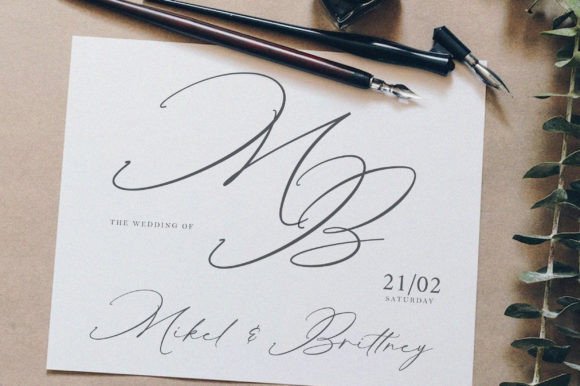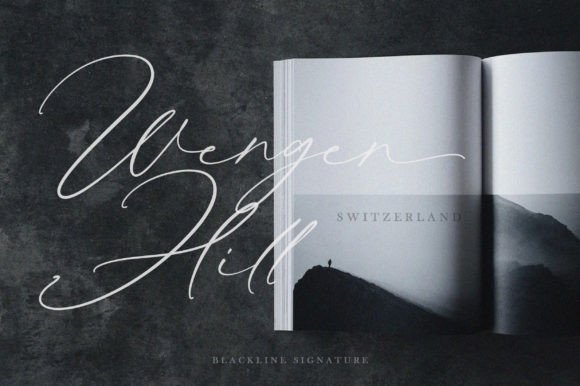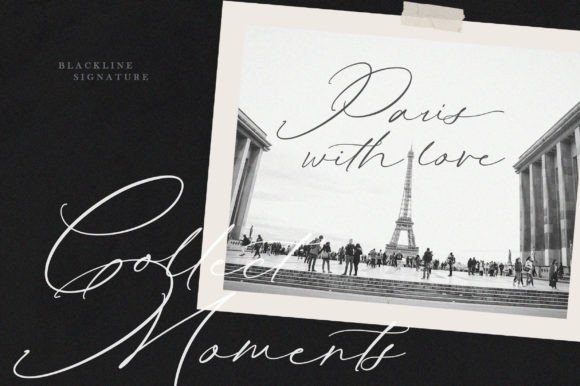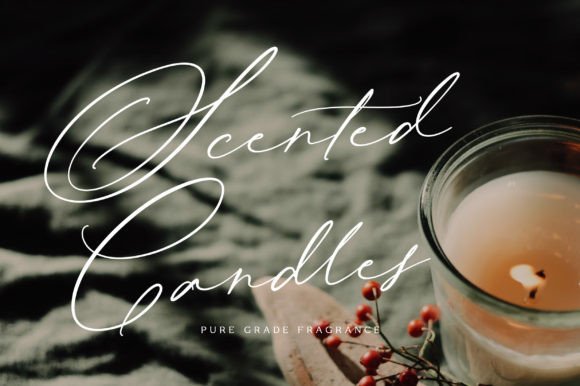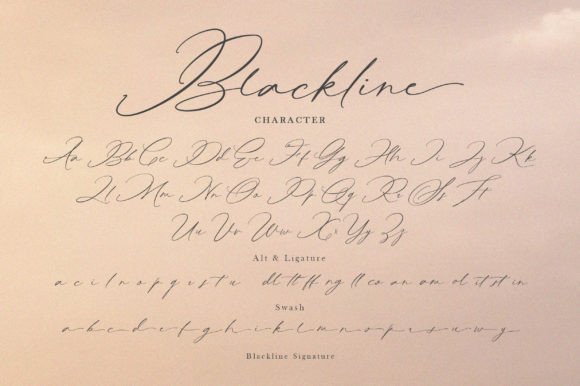
Discover the Elegance of Blackline Font: Elevate Your Designs with a Touch of Sophistication
In the world of typography, fonts play a pivotal role in conveying messages, evoking emotions, and adding personality to designs. Among the myriad of fonts available, the Blackline Font stands out for its unique blend of simplicity and elegance. This thin-lettered handwritten font has been masterfully crafted to become a true favorite among designers and crafters alike. Its contemporary and fresh appeal makes it an ideal choice for any design project you wish to create, ensuring your work stands out with a touch of sophistication.
The Essence of Blackline Font
Blackline Font is characterized by its delicate, thin letters that exude a sense of elegance and refinement. This handwritten font is not just a typeface; it’s an expression of creativity and style. Its simplicity allows it to be versatile, making it suitable for a wide range of design applications, from branding and advertising to packaging and digital media.
Why Choose Blackline Font?
There are several reasons why Blackline Font should be your go-to choice for your next design project:
- Contemporary Appeal: Blackline Font boasts a modern look that is sure to capture the attention of your audience. Its fresh and clean design makes it perfect for projects that require a current and trendy feel.
- Versatility: The font’s simplicity and elegance allow it to be used across various design platforms. Whether you’re working on a logo, a website, or a marketing material, Blackline Font can be seamlessly integrated to enhance your design.
- Legibility: One of the key features of Blackline Font is its excellent legibility. Even at smaller sizes, the font remains clear and easy to read, making it ideal for body text as well as headings.
- Emotional Connection: The handwritten nature of Blackline Font adds a personal touch to your designs, creating an emotional connection with your audience. This can be particularly beneficial for brands looking to establish a more personal and relatable image.
Applications of Blackline Font
The versatility of Blackline Font means it can be used in a multitude of design projects. Here are some of the most popular applications:
- Branding and Logos: Create a lasting impression with a logo that incorporates Blackline Font. Its elegance and simplicity make it an excellent choice for businesses looking to convey sophistication and style.
- Digital Media: From website headers to social media graphics, Blackline Font can elevate your digital content, making it more engaging and visually appealing.
- Marketing Materials: Brochures, flyers, posters, and banners can all benefit from the addition of Blackline Font, adding a touch of class and professionalism to your marketing efforts.
- Packaging: Make your product stand out on the shelves with packaging that features Blackline Font. Its unique and stylish appearance can help attract potential customers.
Tips for Using Blackline Font Effectively
To maximize the impact of Blackline Font in your designs, consider the following tips:
- Pair with Complementary Fonts: Experiment with pairing Blackline Font with other fonts to create visual interest. A combination of a thin-lettered font with a bold font can create a striking contrast.
- Adjust Line Spacing: Ensure that your text is easy to read by adjusting the line spacing. Proper line spacing can enhance the readability of Blackline Font.
- Play with Colors: Don’t be afraid to experiment with different colors. Blackline Font can be used in various colors to match or contrast with your design’s color scheme.
| Author | AMost Store |
Blackline Font is a versatile and elegant typeface that can add a touch of sophistication to any design project. Its contemporary appeal, versatility, and emotional connection make it an excellent choice for designers and crafters looking to create outstanding work. By incorporating Blackline Font into your designs, you can ensure that your work stands out in a crowded digital landscape. So, why wait? Add Blackline Font to your creative projects today and witness the transformation it brings to your designs.